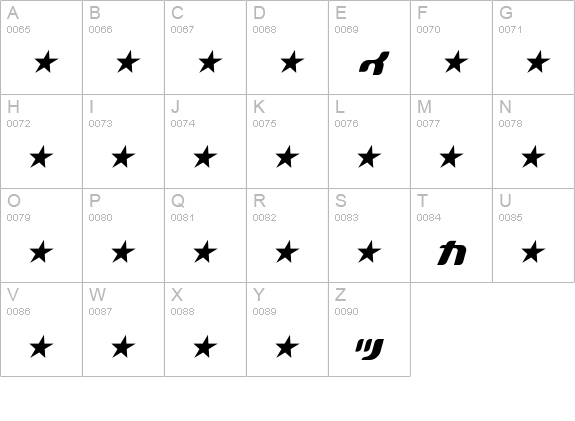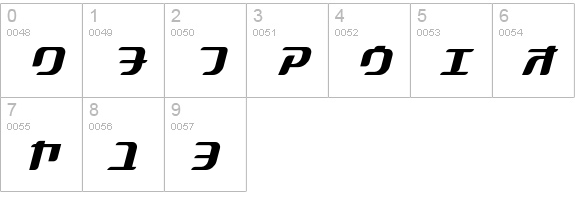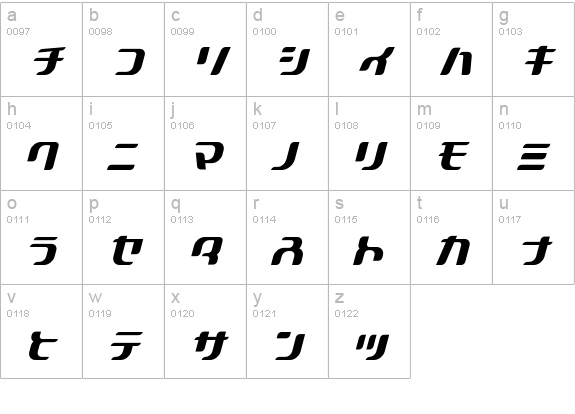
ACRYLIC2081-KAT31 Font Details
ACRYLIC2081-KAT31 font is a bold and dynamic typeface that exudes a sense of modernity and creativity. Its sharp edges and unique design make it perfect for adding a touch of edginess to any project. This font is freely available to download at FontsMarket.com, making it accessible to all designers and creators looking to make a statement with their typography. With its sleek and contemporary look, ACRYLIC2081-KAT31 font is sure to stand out and leave a lasting impression on any design it is used in. Let your creativity shine with this versatile and eye-catching font that is sure to elevate your projects to the next level.